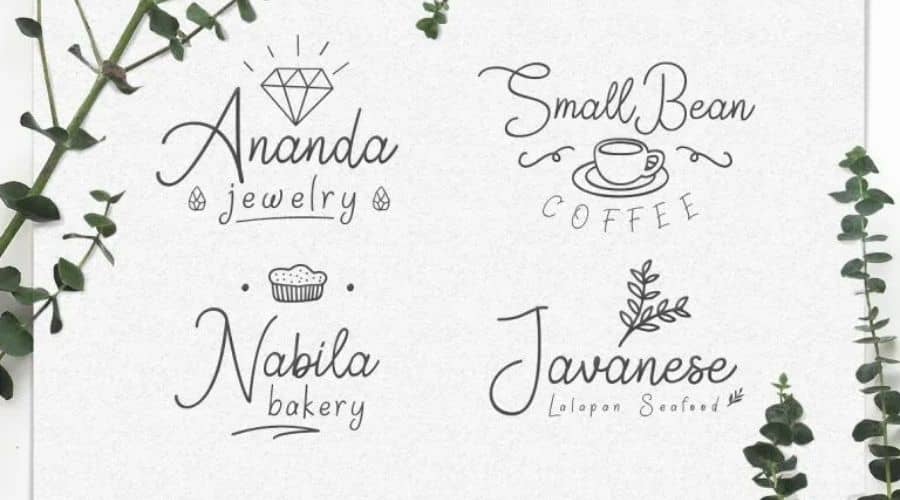
Springfield Script Font
Springfield is here to welcome you! a lovely handwritten and script font Weape Design created it and shared it on April 10, 2019. This is a high-end font. This typeface is available for purchase on Creative Market, but it was so good that it is now available for free download. Springfield Script Font is a brand new font that comes with a series of doodle illustrations to go with it.
The typeface allows you to create gorgeous hand-drawn typography quickly. Two different fonts are used, as well as a playful doodle image. While typing, it flows like a signature. Springfield is handwritten directly on the paper with a coarse type brush to achieve a strong and uniform texture.
There are four lowercase options in Springfield. Furthermore, some letters have 5-6 lowercase variants that you can choose from. And other slant fonts that are perfect for making your writing look more slanted and powerful. The Font includes file such as Springfield.ttf, Springfield.otf, Springfield.woff, Springfield Slant.ttf, Springfield Slant.otf, Springfield Slant.woff.
Springfield is ideal for logos, invitations, product packaging, t-shirt designs, and as an elegant word overlay to any backdrop image. The font is also suitable for a wide range of projects, including stationery, invites, social media, logos, weddings, branding, and graphic design with additional swashes. It can be mixed and matched with a variety of serif fonts to create the perfect project.
Springfield can also be utilized in a variety of shopping bags that need to have an attractive appearance. The characteristics of this Font enable it to lend an artistic feel to any project. The beautiful typeface can also be used in the cover of any Facebook page. A benefit of this typeface is that it looks nice with any form of brand emblem.
| Name | Springfield Script Font |
| Designer | Weape Design |